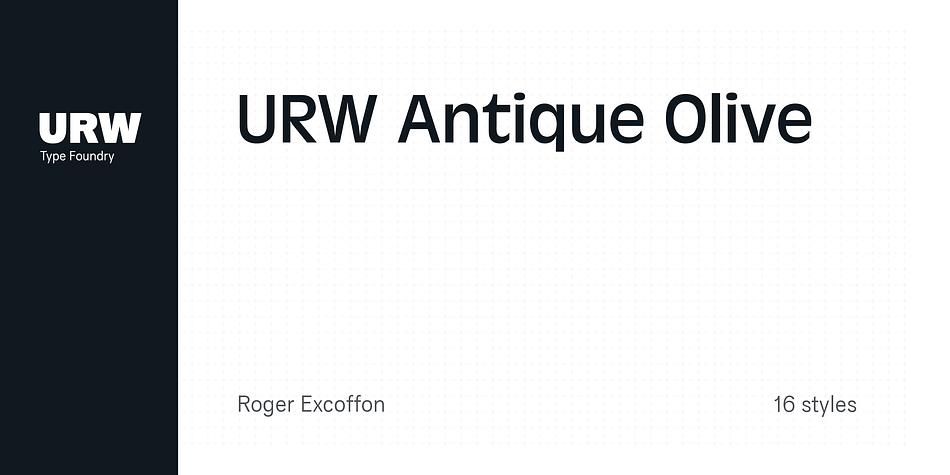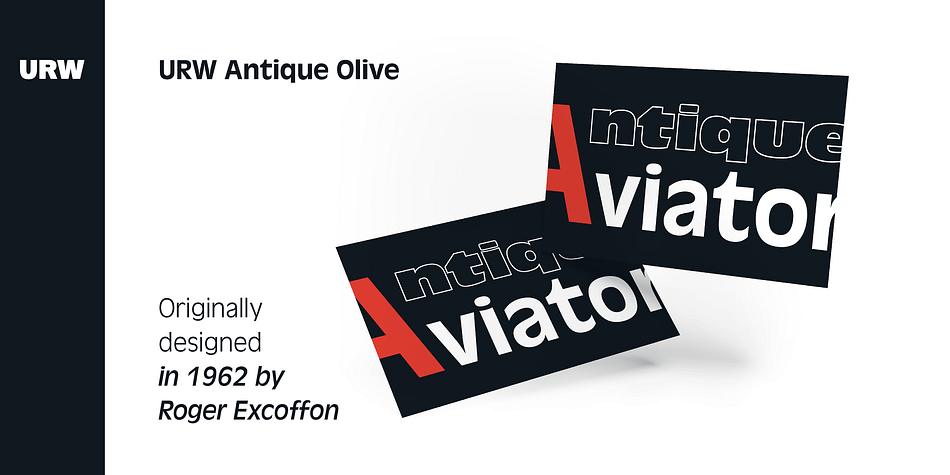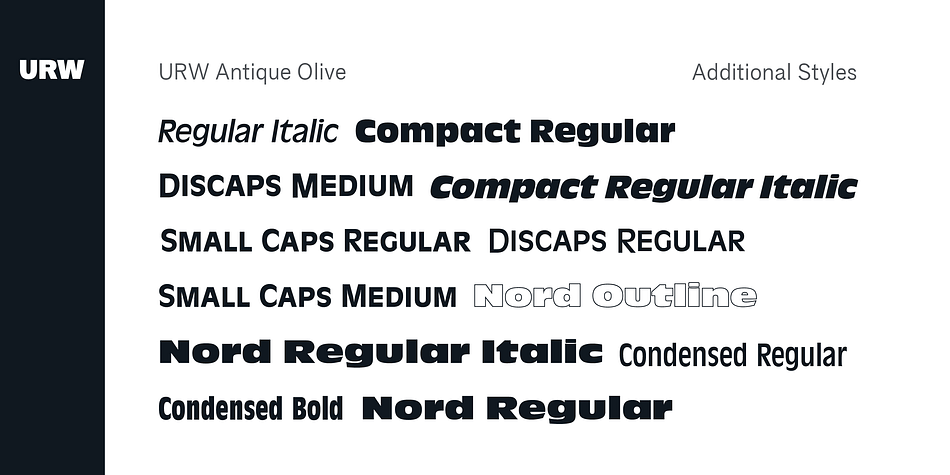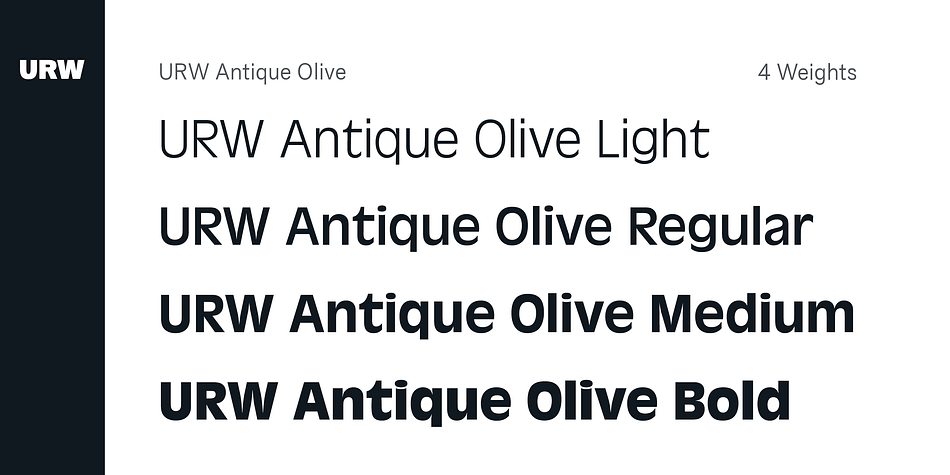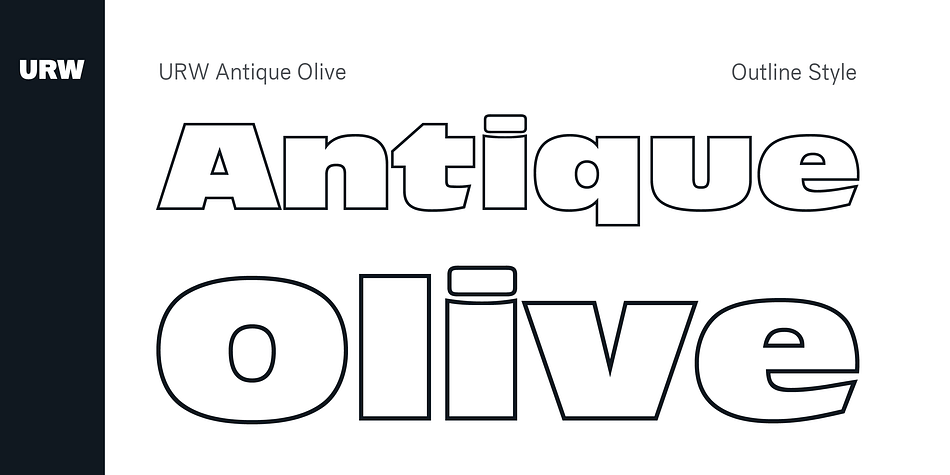
Designed by Roger Excoffon, URW Antique Olive is a sans serif font family. This typeface has sixteen styles and was published by URW Type Foundry.
Excoffon designed a new logo for Air France back in the early 1970s, and the lettering formed the basis for the complete Antique Olive typeface design. Antique Olive is still quite popular, obviously especially in France, although it is not that easy to set type with it. It is not really good for lengthy text copy but rather ideal for large headlines, ads, and posters. It can be set tight and even very tight without compromising legibility or optical quality. A company logo giving birth to the typeface design as well as Antique Olive’s character shapes seem to make it particularly well suited for logos and letterings of that kind. Its advantages are the strength of character and distinctiveness.
Foundry | URW Type Foundry |
Released | 1980 |
Designer | Roger Excoffon |